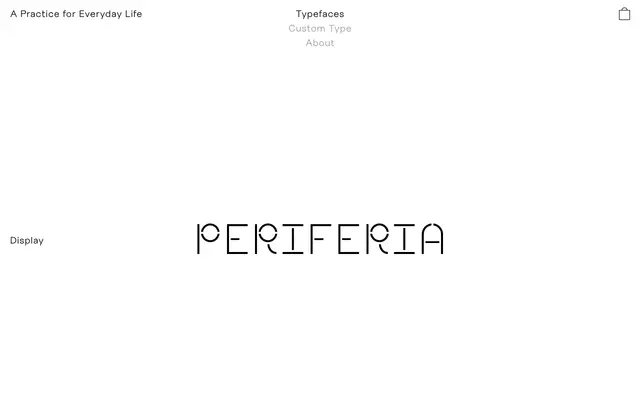
Periferia
A Practice for Everyday Life · Andrés Sandoval
A modular display typeface built from rubber-stamp forms, drawing on the rhythms and textures of the urban environment.
Each letterform is constructed from a limited set of stamped modules, and the textural irregularities of that process carry forward into the final design, giving it a hand-made quality rooted in physical mark-making. The foundry draws a deliberate parallel between rubber-stamping and movable type, framing Periferia as both a display face and a meditation on print history. Its Latin character set covers a broad range of European languages, making it serviceable for identity and editorial work across multiple markets.
Classified as Display by the foundry; letterforms built from a limited set of modular stamped forms with textural imperfections that give a hand-rendered, urban quality quite distinct from conventional type categories.